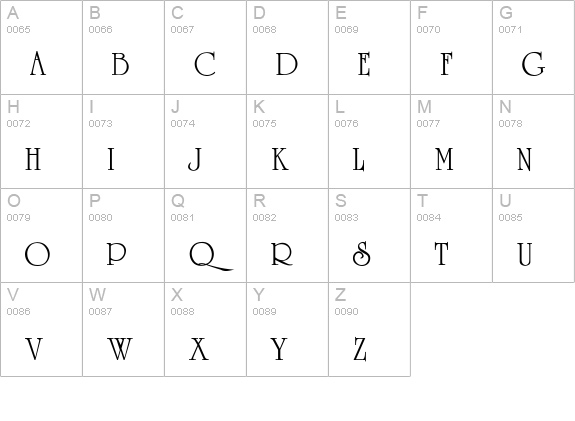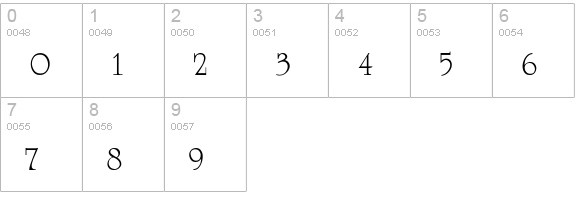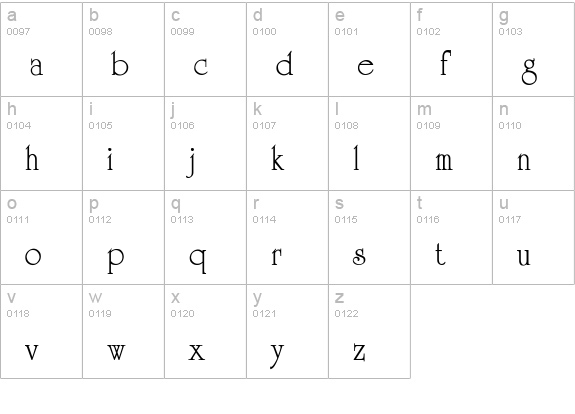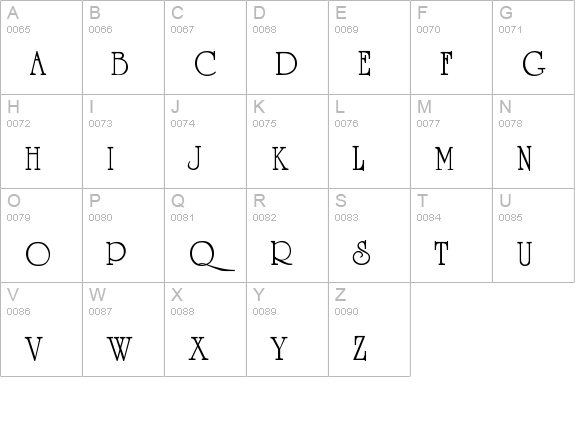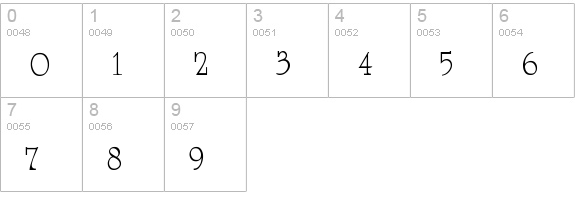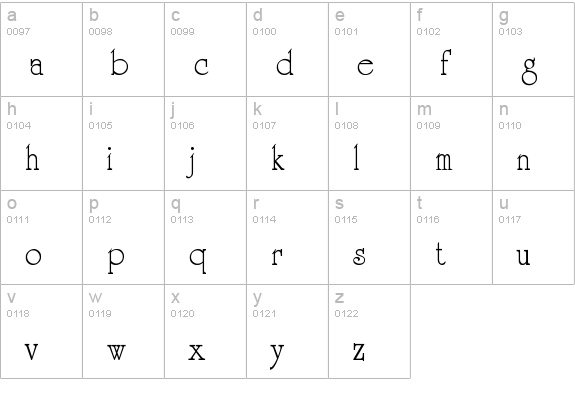
UniversityRoman-Thin Font Details
UniversityRoman-Thin is a delicate, low-contrast variant in the UniversityRoman typeface family \xE2\x80\x94 well suited to fashion editorial, minimal branding, and high-contrast display.
UniversityRoman-Thin is a sleek and modern font that exudes elegance and sophistication. With its thin and refined letterforms, this typeface is perfect for adding a touch of sophistication to any design project. Designed with precision and attention to detail, UniversityRoman-Thin offers a unique and stylish alternative to traditional fonts. Its clean lines and delicate curves create a sense of balance and harmony, making it a versatile choice for a wide range of applications. Whether you're designing a logo, creating a website, or crafting a professional document, UniversityRoman-Thin is sure to make a lasting impression. Its slim and graceful letterforms are easy on the eyes and effortlessly convey a sense of professionalism and refinement. One of the best features of UniversityRoman-Thin is that it is freely available to download at FontsMarket.com. This means that you can easily access and use this font in your projects without any cost. The convenience and accessibility of this font make it a valuable resource for designers, students, and anyone looking to elevate their creative endeavors. So why wait? Enhance your designs with the timeless beauty of UniversityRoman-Thin. Download this font from FontsMarket.com today and unlock a world of possibilities. With its sleek aesthetic and versatility, UniversityRoman-Thin is sure to elevate your design projects to new heights.